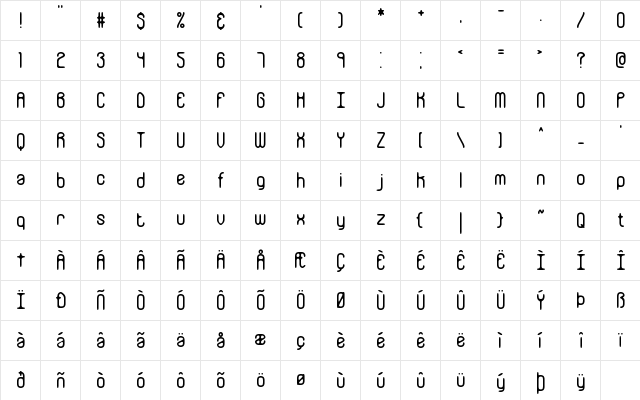
Galvanize BRK Normal
| Foundry | ƎIGMA FONTS |
| Designer | ƎIGMA FONTS - Brian Kent |
Design Context for Galvanize BRK Typeface
Galvanize BRK offers clean, dependable letterforms without strong stylistic allegiance, making it a practical choice for designers who need flexibility.